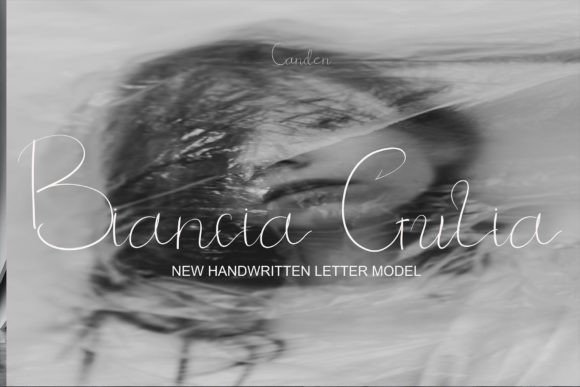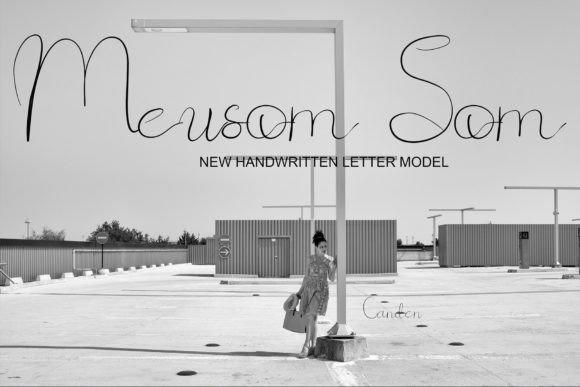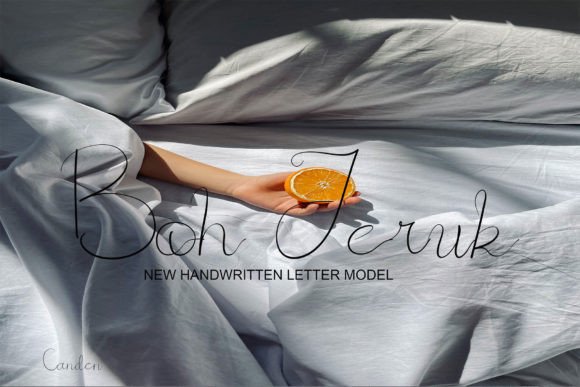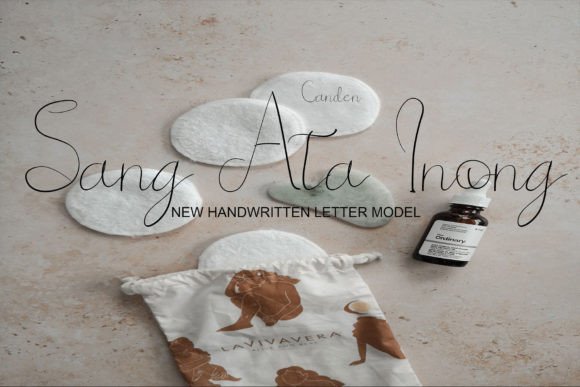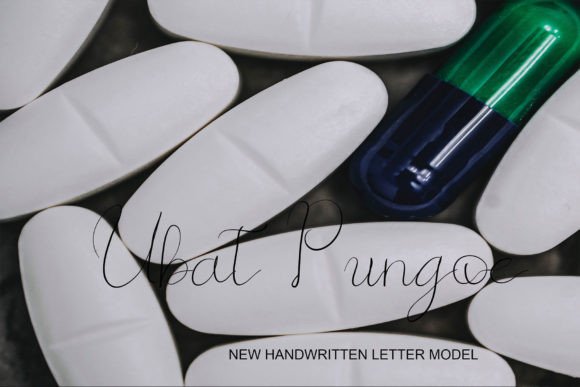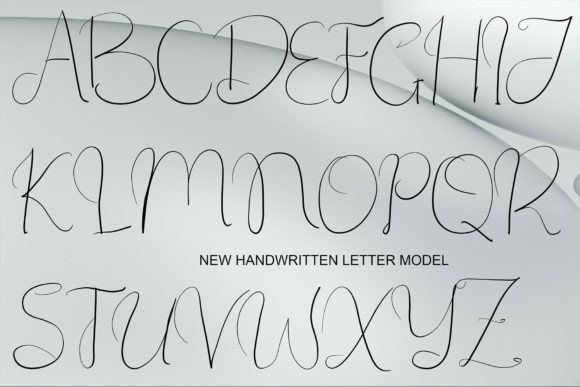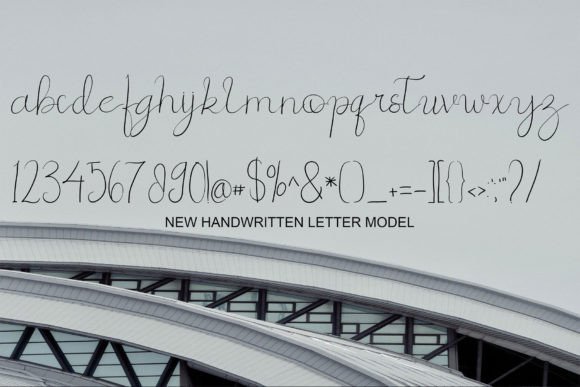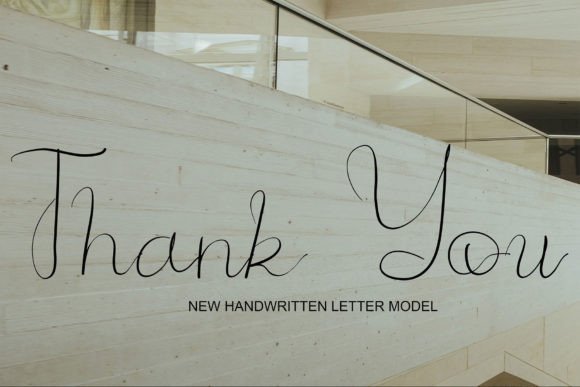
Biancia Gulia Font
About Biancia Gulia Font
**Biancia Gulia: A Cool and Stylish Handwritten Font Crafted for Digital Excellence**
Biancia Gulia, a handwritten font meticulously crafted with a pen tablet, exudes simplicity with a touch of cool and stylish flair. Here’s an exploration of its features and potential applications:
1. **Digital Handwriting Craftsmanship:** The use of a pen tablet in creating Biancia Gulia ensures an authentic and natural handwriting style. This digital craftsmanship provides a unique character to the font.
2. **Simplicity and Elegance:** Biancia Gulia’s simplicity enhances its elegance. The straightforward design makes it versatile and suitable for a variety of applications.
3. **Website Typography:** Elevate the visual appeal of your website by using Biancia Gulia for headers, subheadings, or as a unique font for overall text content. Its cool and stylish demeanor can contribute to a modern web aesthetic.
4. **Advertising Materials:** Whether for online banners, social media ads, or print advertisements, Biancia Gulia’s cool and stylish appearance adds a touch of personality to your promotional materials.
5. **Cool and Stylish Websites:** If you’re working on a website that aims to convey a cool and stylish vibe, Biancia Gulia can be a perfect choice for various text elements, creating a consistent and appealing look.
6. **Digital Publications:** Use Biancia Gulia for digital publications such as e-books, online magazines, or newsletters. Its handwritten charm adds a personal touch to the digital reading experience.
7. **Blog Posts and Articles:** Make your blog posts or articles stand out by incorporating Biancia Gulia for titles or featured text. Its cool and stylish elements can capture attention and enhance readability.
8. **Social Media Graphics:** Create engaging social media graphics with Biancia Gulia for captions, quotes, or any text elements. Its handwritten aesthetic can add a sense of authenticity to your social media presence.
9. **Branding and Logos:** Craft a unique brand identity by using Biancia Gulia in your logo or as part of your branding materials. Its cool and stylish demeanor can make your brand memorable.
10. **Apparel Design:** Apply Biancia Gulia to apparel designs, such as T-shirt graphics or clothing tags, to infuse a touch of casual yet stylish handwriting.
11. **Cool and Stylish Presentations:** Upgrade your presentation slides with Biancia Gulia, making your content more visually appealing and leaving a lasting impression on your audience.
12. **Digital Creativity:** If you’re working on creative projects like digital illustrations or multimedia presentations, Biancia Gulia can be the perfect font to complement your artistic endeavors.
13. **Versatility in Styling:** Biancia Gulia’s cool and stylish nature makes it versatile in various styling contexts. It can be adapted to minimalistic designs, bold and vibrant themes, or any style that demands a touch of uniqueness.
14. **Cool and Stylish Branding Elements:** Incorporate Biancia Gulia into various branding elements such as business cards, letterheads, or packaging for a cohesive and stylish brand image.
15. **Cool and Stylish Quotes:** Use Biancia Gulia for crafting visually appealing quote graphics for social media, merchandise, or any other creative endeavor where stylish quotes are needed.
Biancia Gulia, with its cool and stylish demeanor, offers a digital handwriting experience that blends simplicity with flair. Whether in digital or print applications, its versatility makes it a valuable asset for a wide range of design projects.